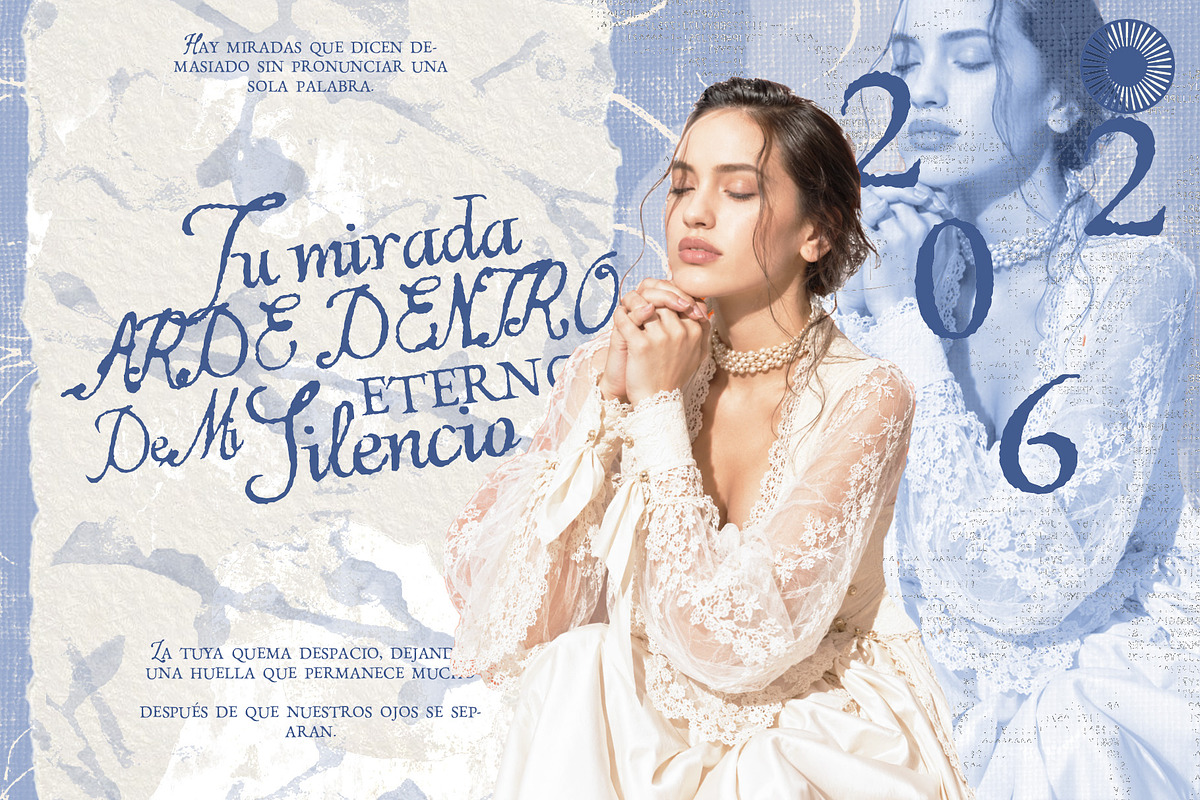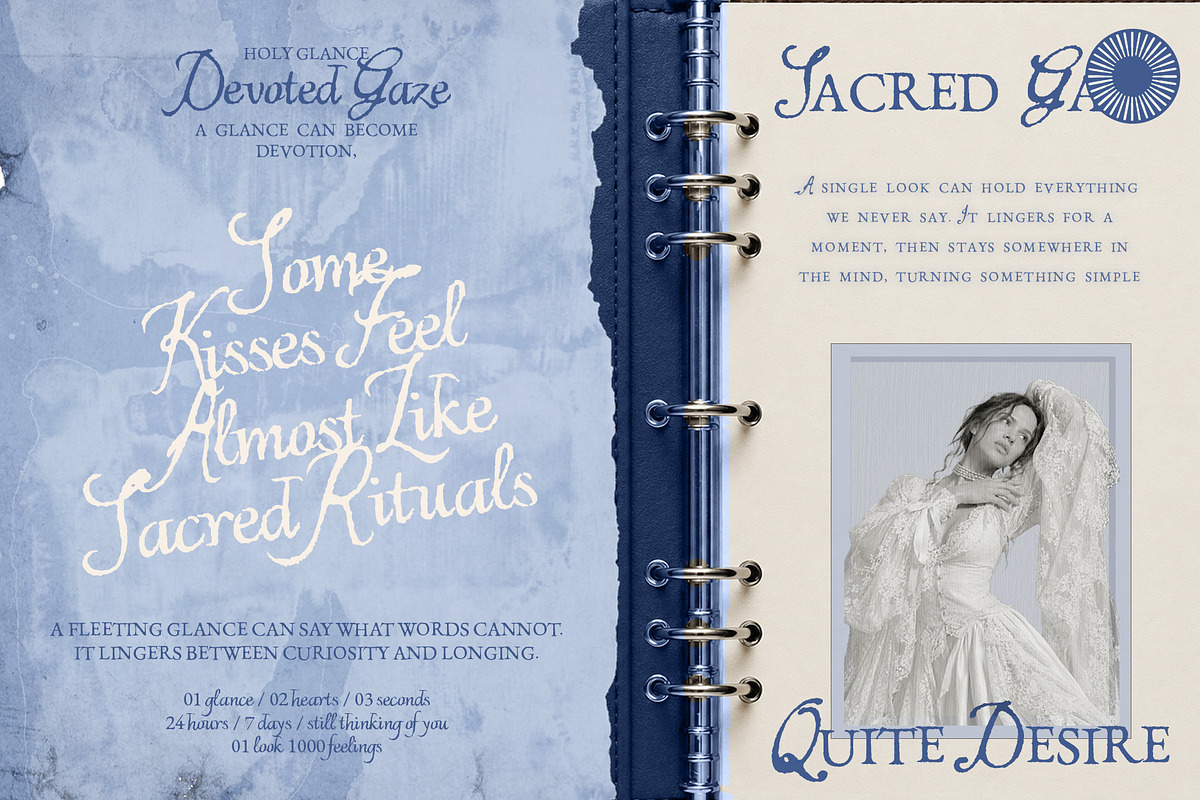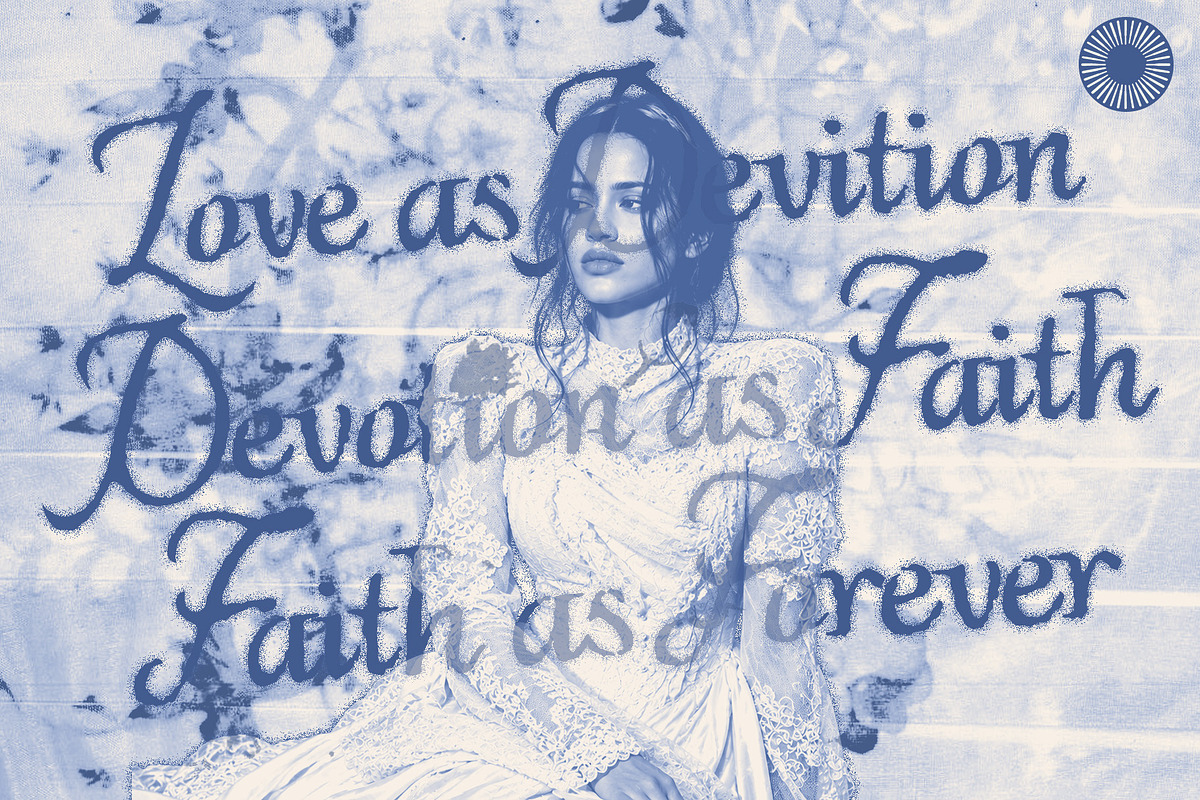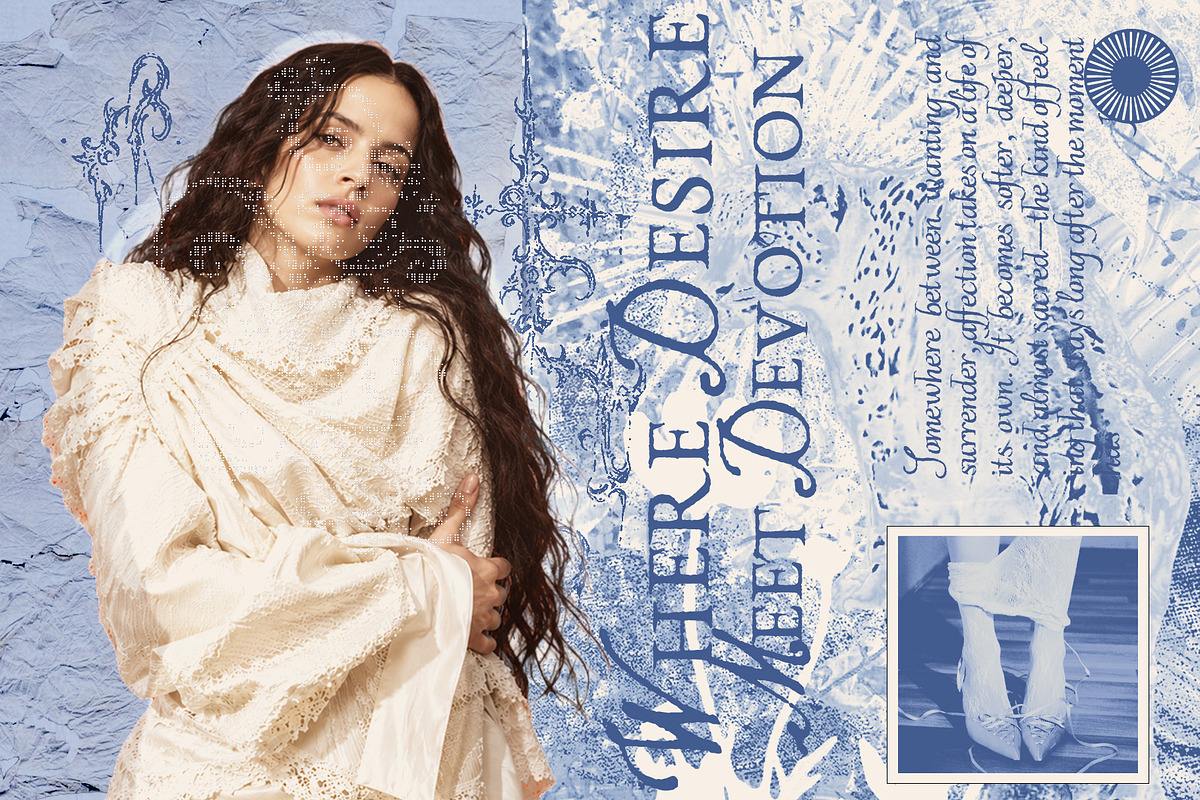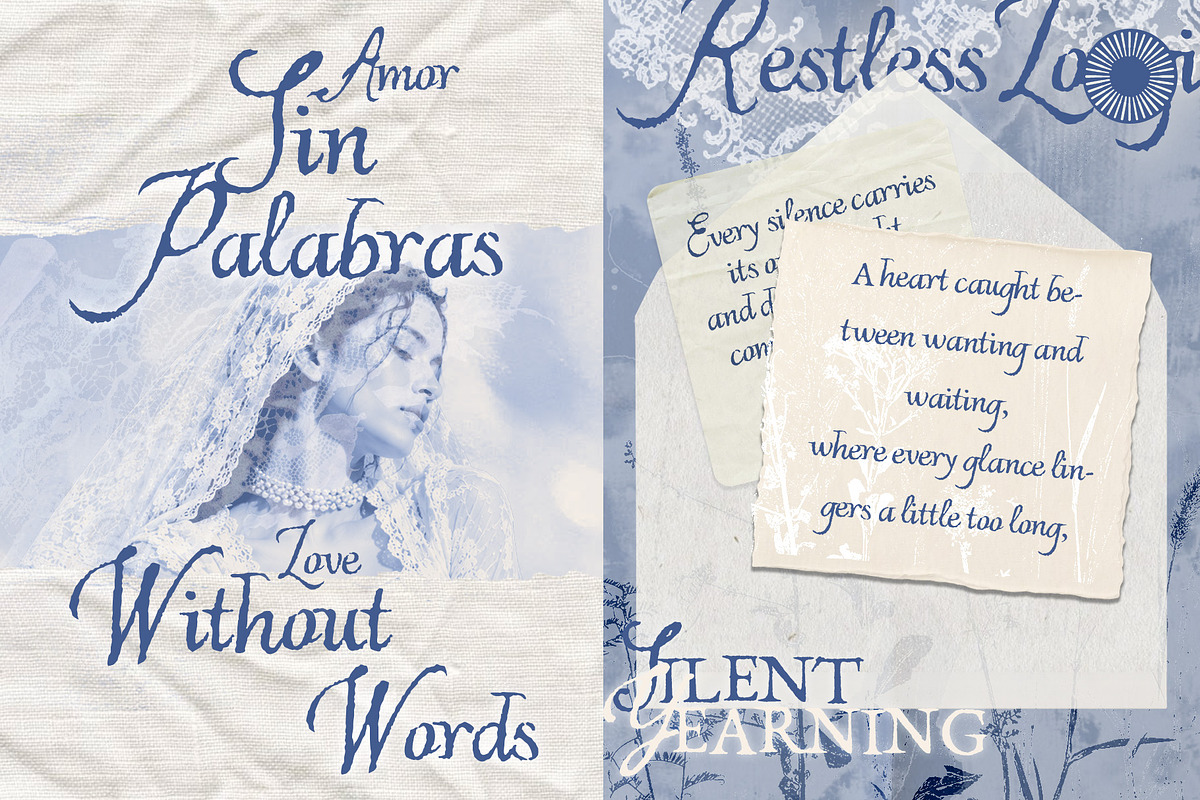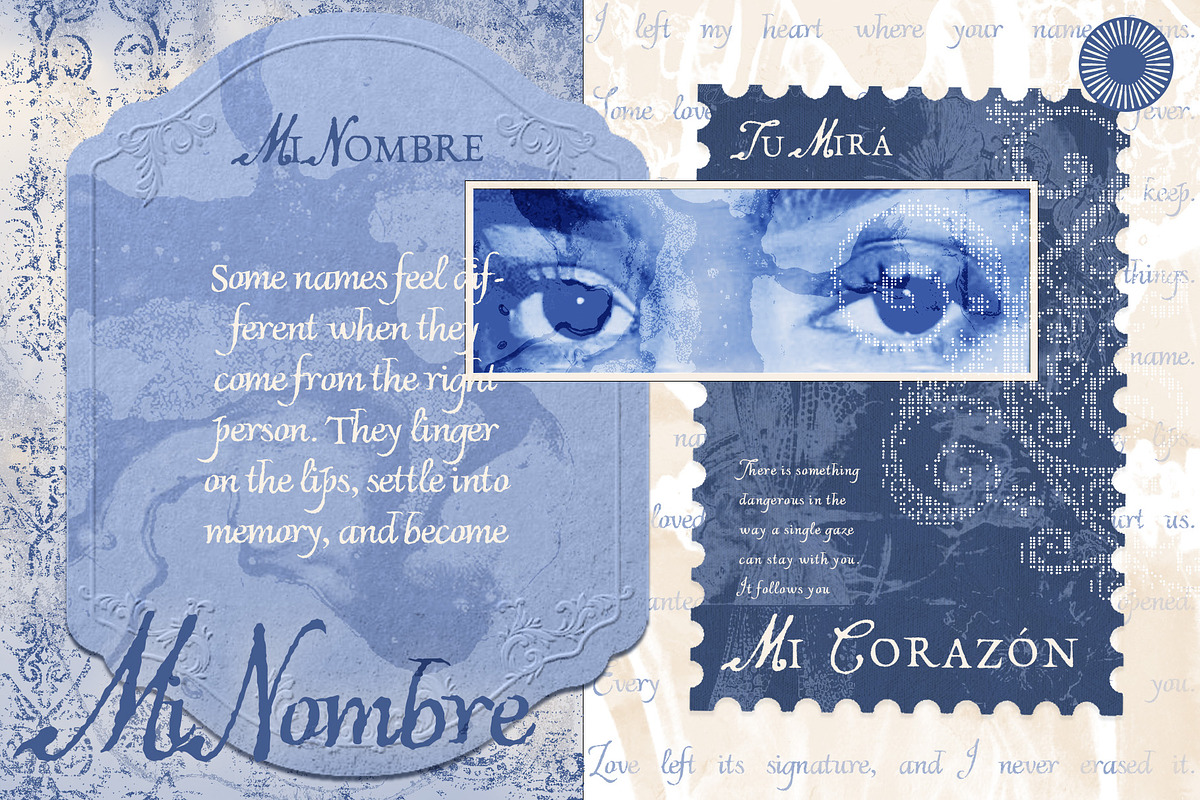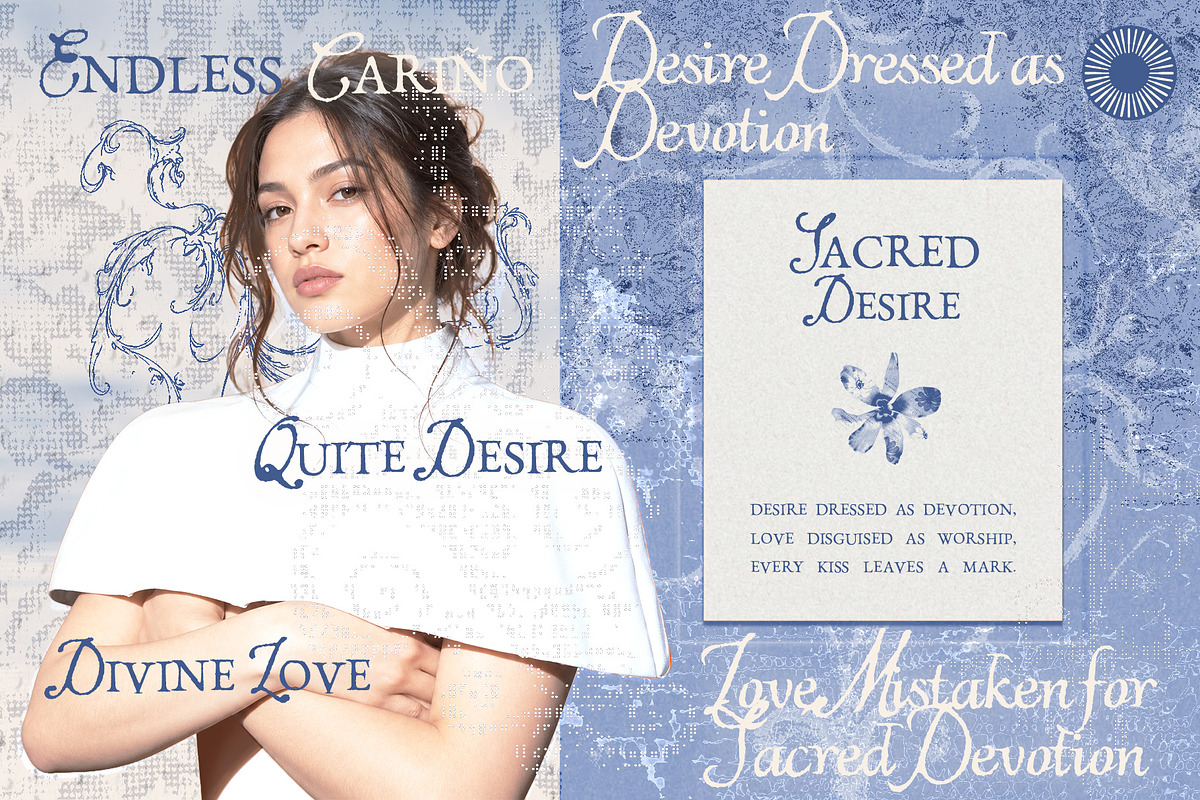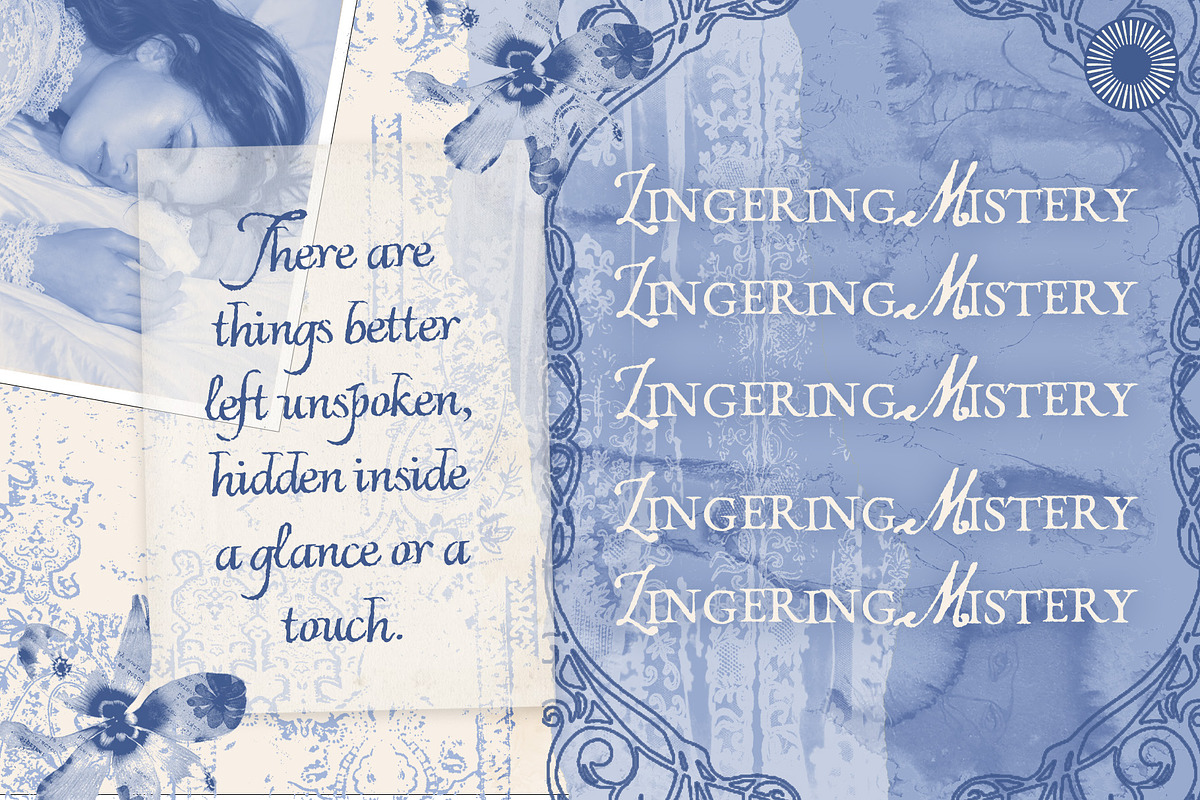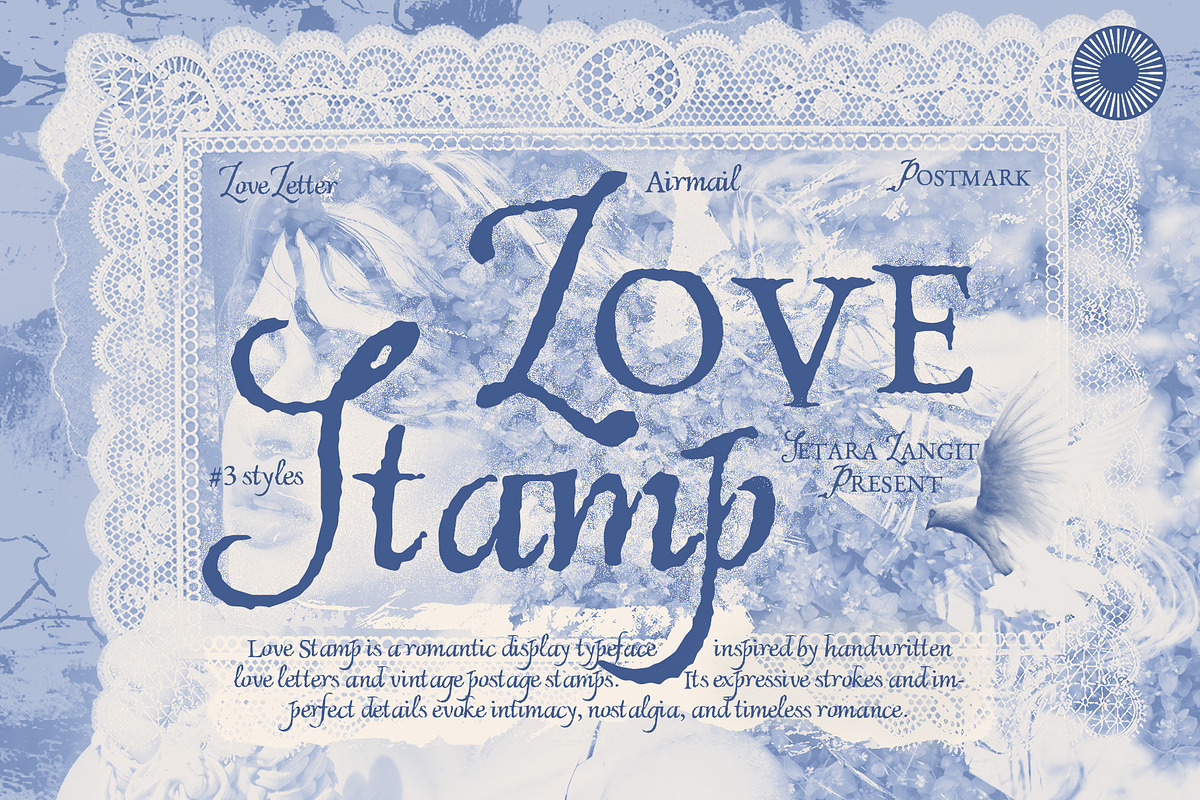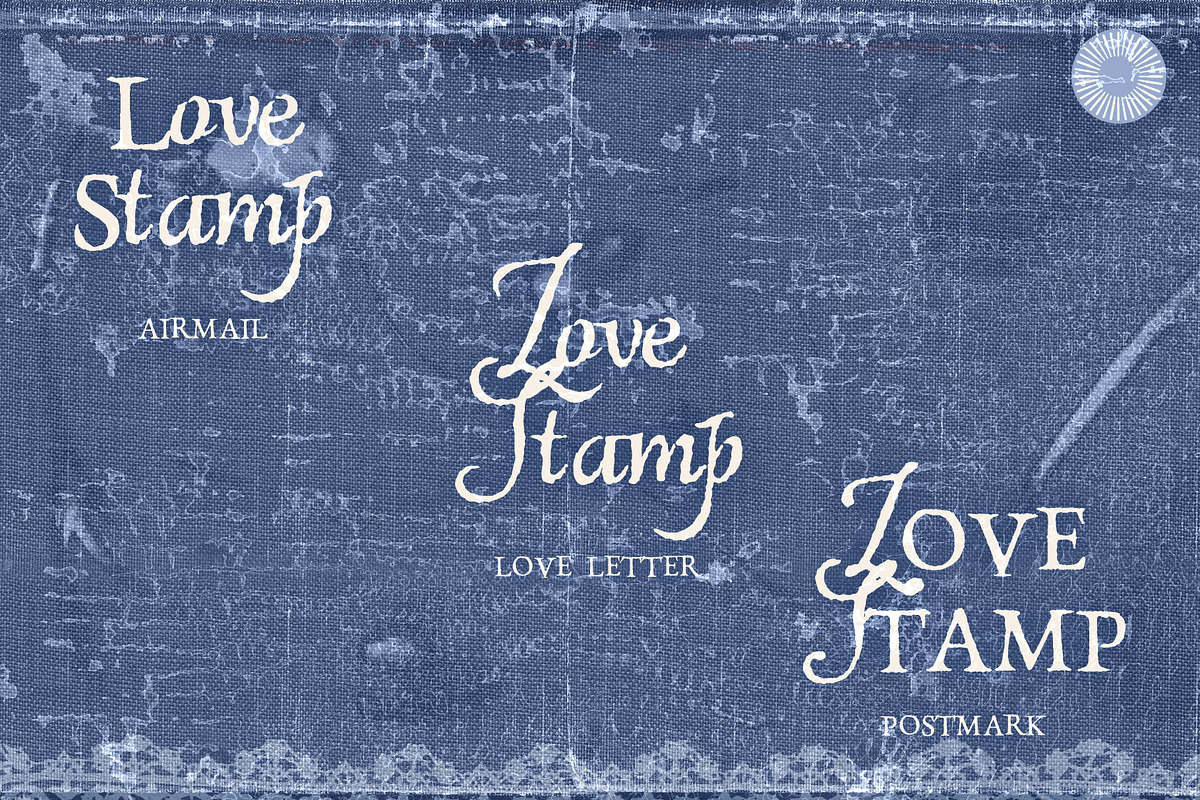
Love Stamp - Vintage Love Lettering
Love Stamp – Vintage Love Lettering
Love Stamp is a romantic love lettering inspired by handwritten love letters, old-world romance, devotion, and timeless expressions of affection.
With its flowing calligraphic strokes, elegant curves, and expressive handwritten character, Love Stamp brings a personal and nostalgic quality to typography. Its graceful forms create a sense of intimacy while retaining enough visual presence to work beautifully as display lettering.
Perfect for designers looking to create romantic, vintage, poetic, and sophisticated visuals, Love Stamp works beautifully across wedding stationery, branding, editorial design, packaging, book covers, album artwork, and other projects that call for expressive typography.
Best For:
Wedding Invitations
Wedding Stationery
Romantic Branding
Boutique Branding
Fashion Branding
Beauty Branding
Poetry Books
Editorial Design
Album Artwork
Music Branding
Greeting Cards
Love Letters
Photography Branding